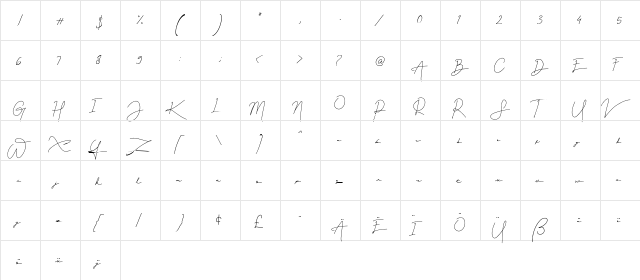
Gellattik Janggan Regular
| Foundry | Krisna Teja |
Design Context for Gellattik Janggan Typeface
Gellattik Janggan takes a measured approach to typography — its balanced proportions and neutral character make it a reliable workhorse for both digital and print work.